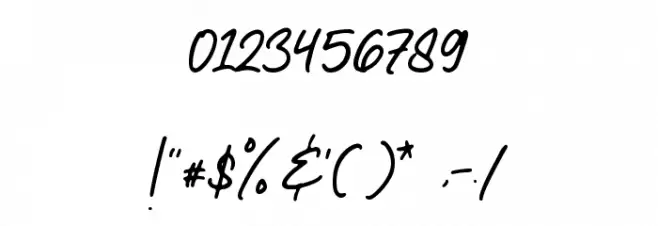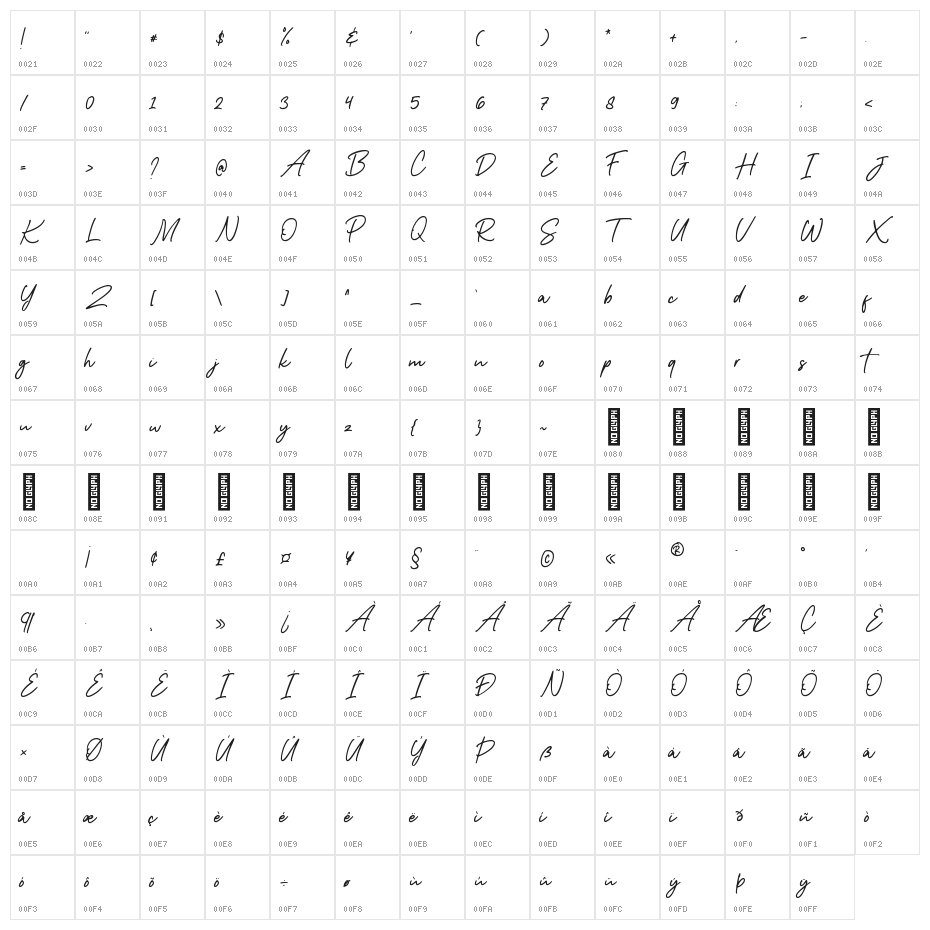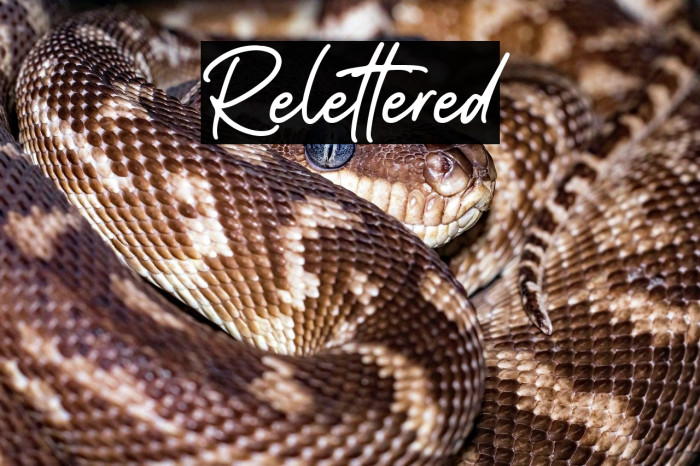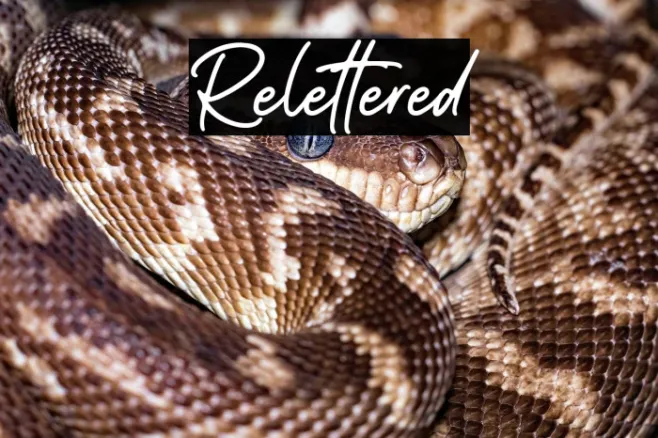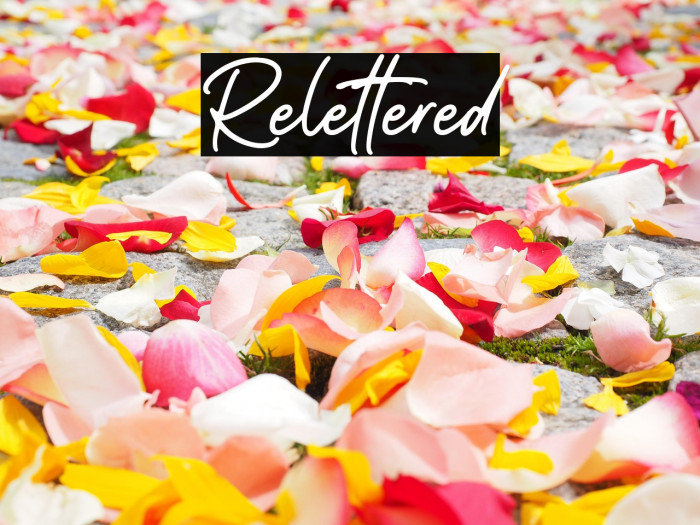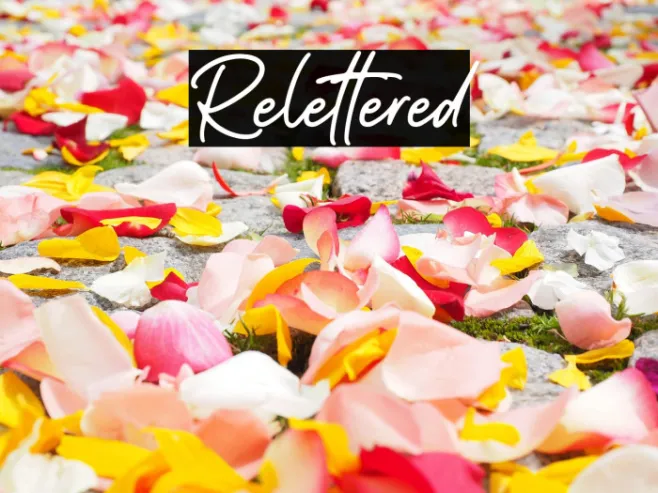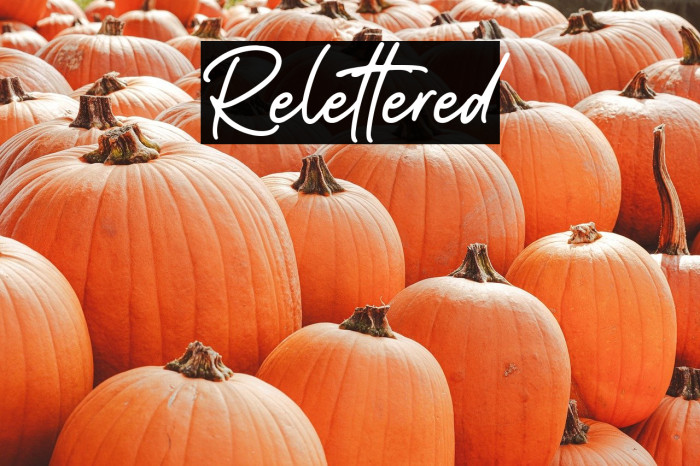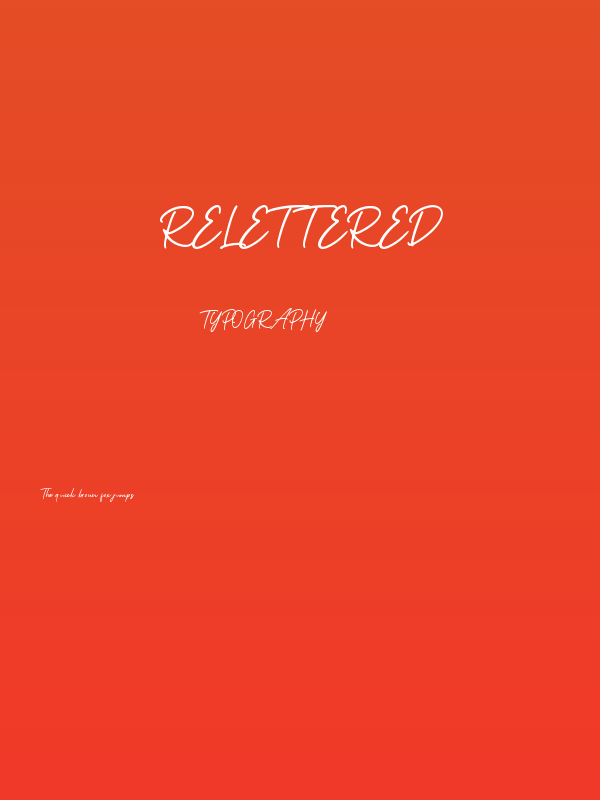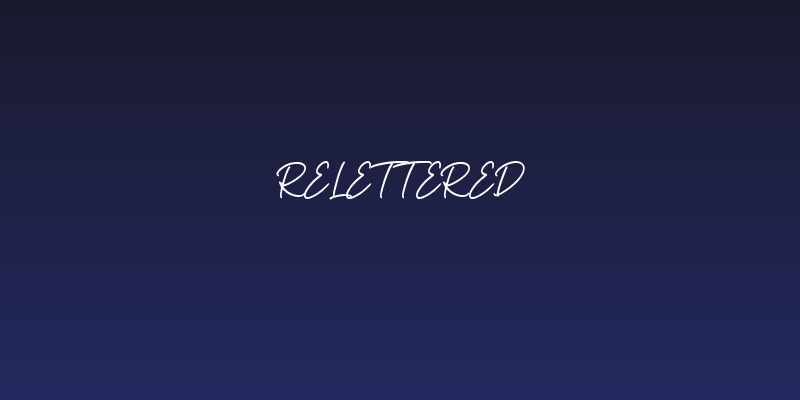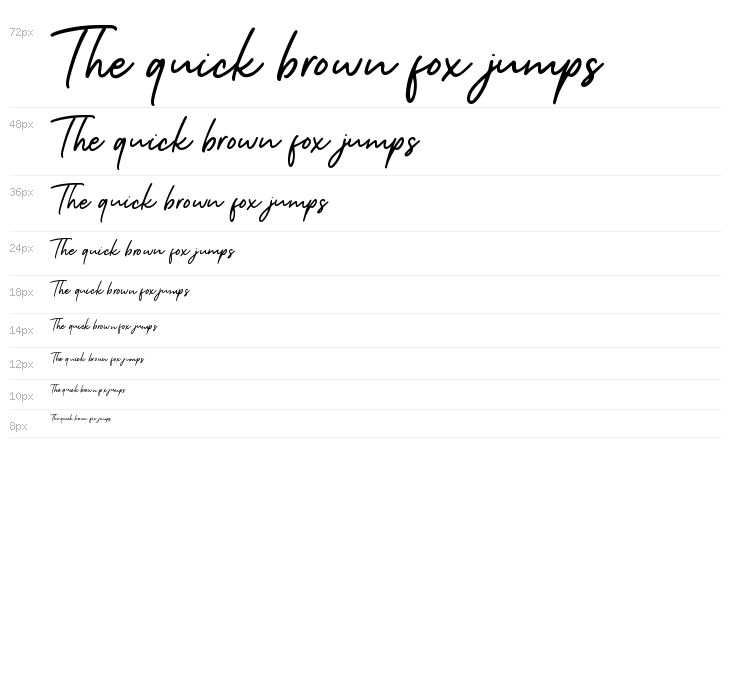
Relettered Font
Relettered Description
This font exudes a casual and elegant handwritten style, characterized by its fluid and connected strokes. The letters have a natural flow, mimicking the appearance of cursive handwriting with a modern twist. The uppercase letters are slightly more pronounced, adding a touch of sophistication, while the lowercase letters maintain a consistent and smooth baseline. The numerals and special characters are crafted to complement the overall style, ensuring a cohesive look across all text. This font is perfect for projects that require a personal touch, such as invitations, greeting cards, or branding materials.